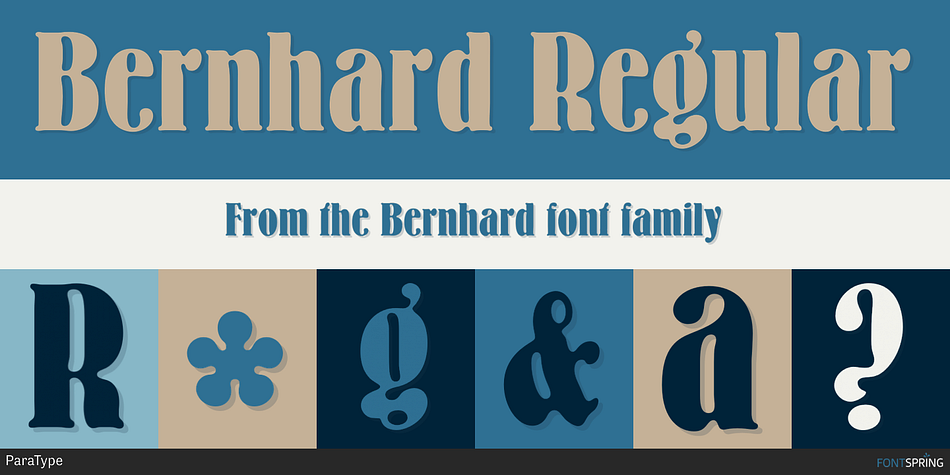
Bernhard Regular
Designed by Tatiana Lyskova and Alexander Tarbeev, Bernhard is a display serif and art nouveau font family. This typeface has two styles and was published by ParaType.
The typeface was designed at ParaType (ParaGraph) in 1993 (by Tatiana Lyskova). Based on Bernhard Condensed typeface of the Bauer company, 1912 by Lucian Bernhard). For use in advertising and display typography.
Styles Art Nouveau, Display Serif
Designers Tatiana Lyskova, Alexander Tarbeev